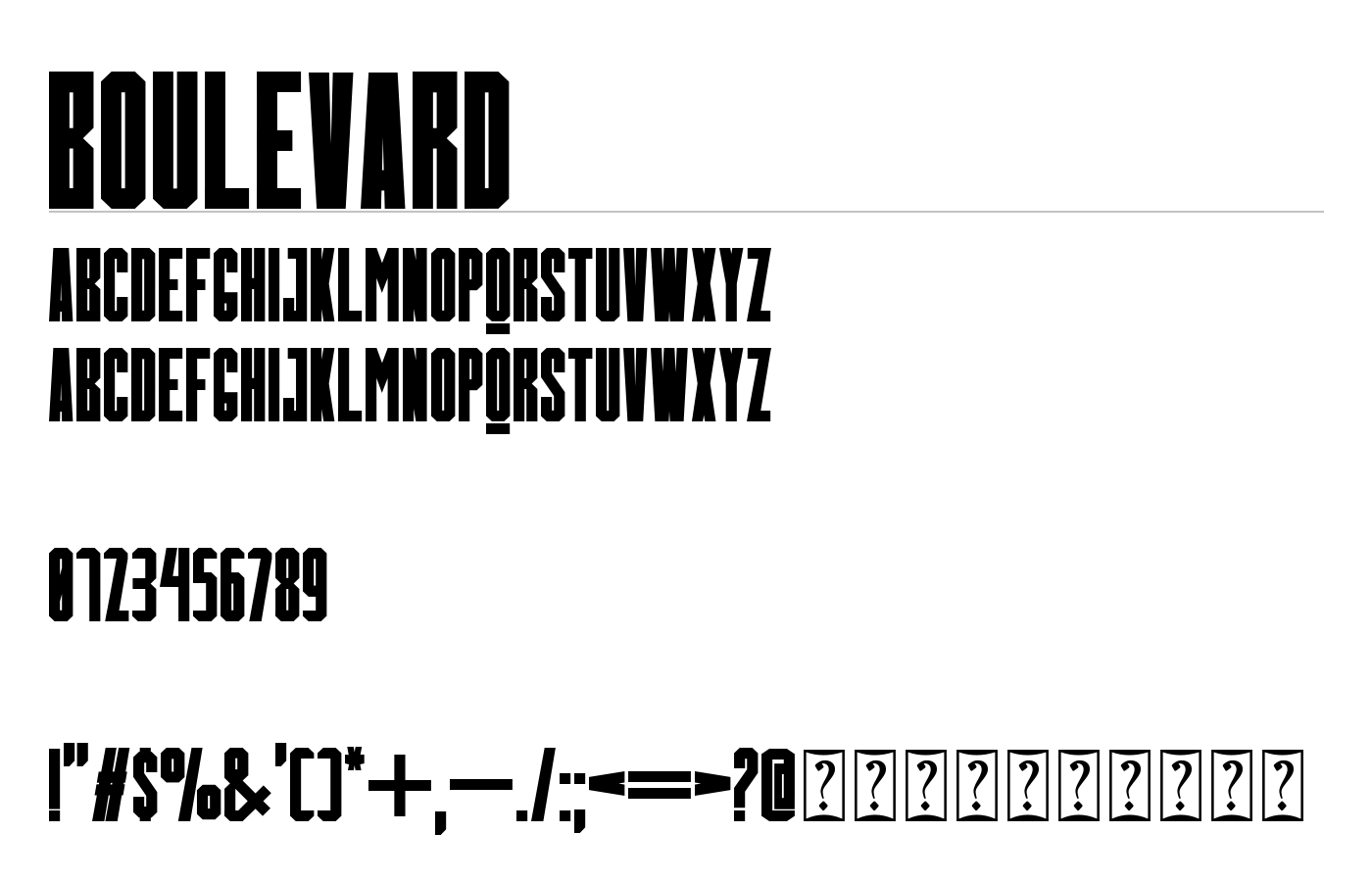
Boulevard is a bold, condensed sans serif font with a strong, geometric structure and high stroke contrast, giving it an impactful, urban feel. Its tall, narrow letterforms create a dramatic presence, making it perfect for headlines, posters, and branding that aim to convey strength and modernity. This typeface works best in display settings where attention-grabbing style is key.
BOULEVARD Font
About BOULEVARD Font